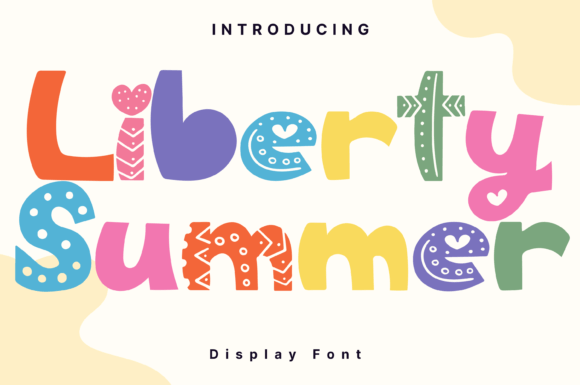
Introducing Liberty Summer Font, the perfect addition to your creative toolbox! Created by AchiArt, this whimsical and clean handwritten display font is a must-have for anyone looking to add a touch of charm and personality to their projects.
Liberty Summer is versatile and can be used in a wide range of design projects, including logos, social media graphics, wedding invitations, and more. Its playful and unique style will instantly make your designs stand out and grab attention.
Whether you're a professional graphic designer or a DIY enthusiast, Liberty Summer is easy to use and customize to fit your needs. Its natural, flowing lines and elegant curves give it a timeless appeal that will never go out of style.
With Liberty Summer, you'll be able to add a touch of whimsy and creativity to any project. Its handcrafted feel will bring a personal touch to your designs, making them truly one-of-a-kind.